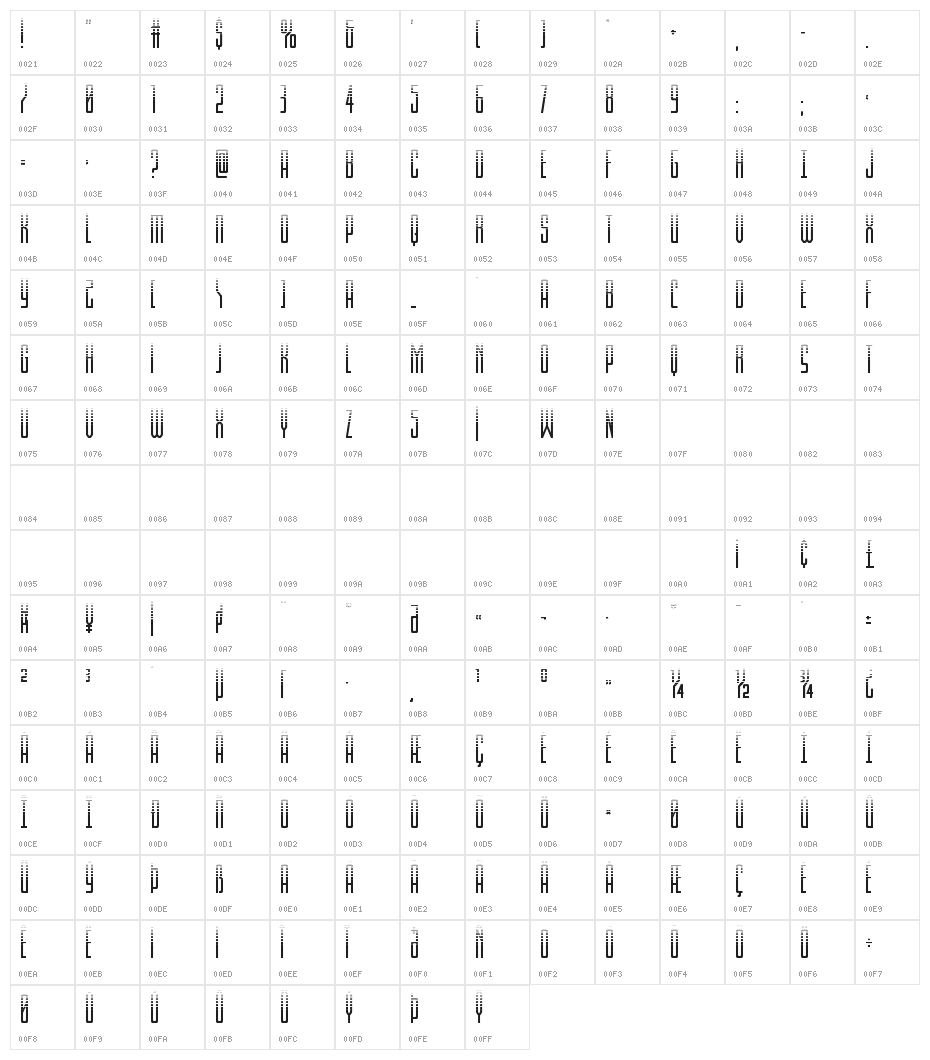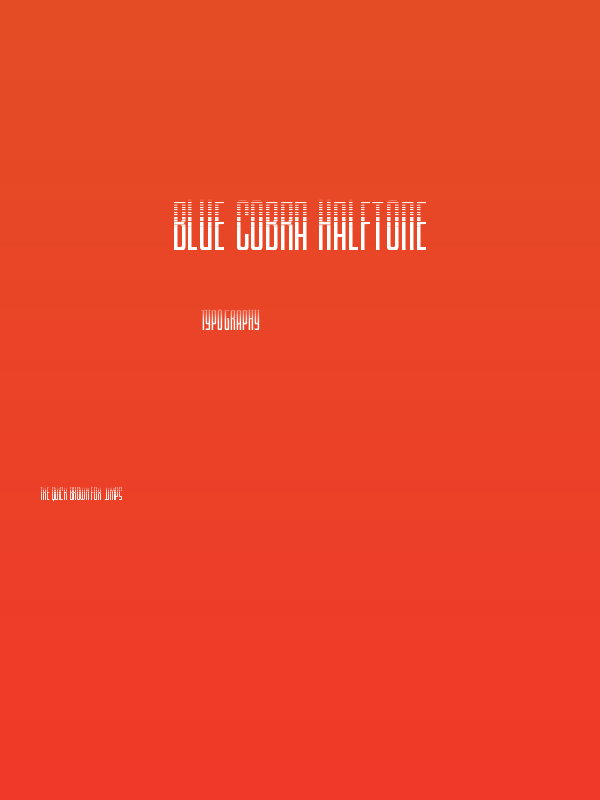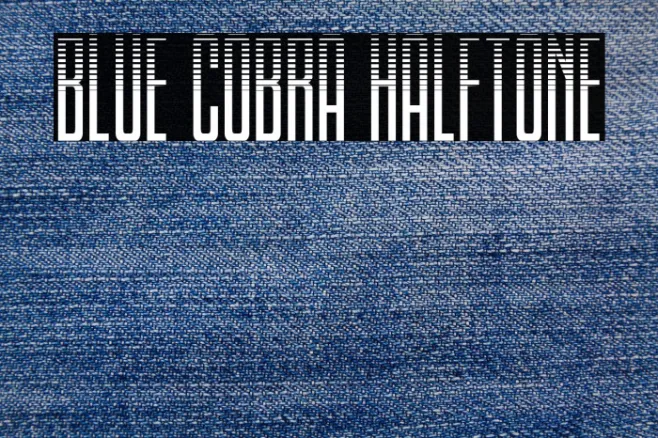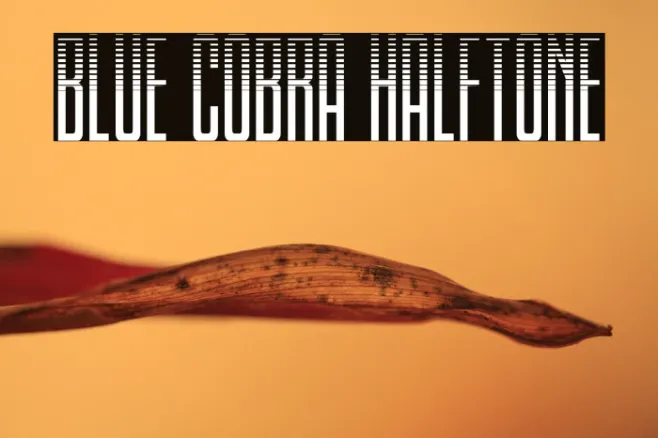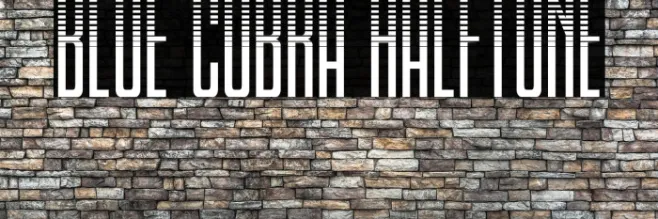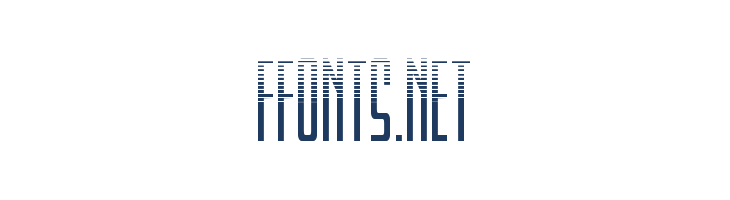
Blue Cobra Halftone Font
Blue Cobra Halftone Description
This font features a unique halftone design, combining bold vertical lines with a dotted pattern that creates a striking visual effect. The uppercase letters are tall and narrow, with a consistent height that gives a uniform appearance. The lowercase letters maintain the same style, ensuring cohesion throughout the typeface. Numbers and special characters are designed to match the overall aesthetic, making them suitable for a variety of creative applications. The halftone effect adds a sense of depth and texture, making it ideal for eye-catching designs.
| Proposed Projects | Ideal for posters, album covers, branding, and any project needing a bold, modern look. |